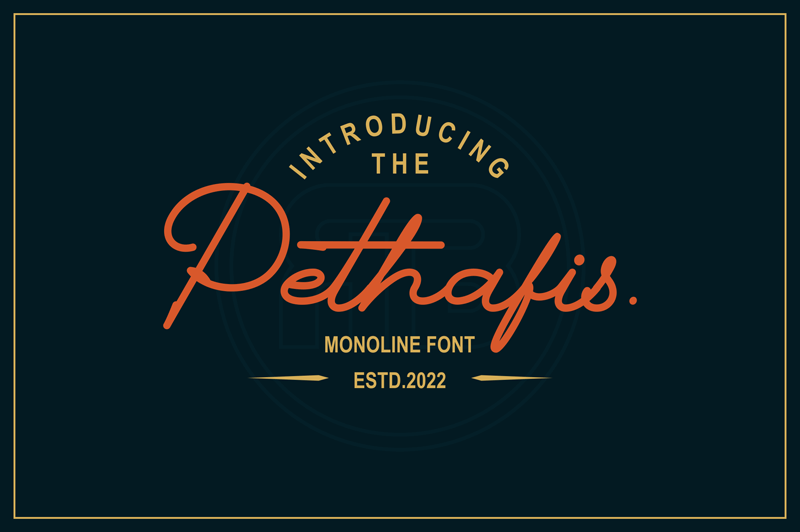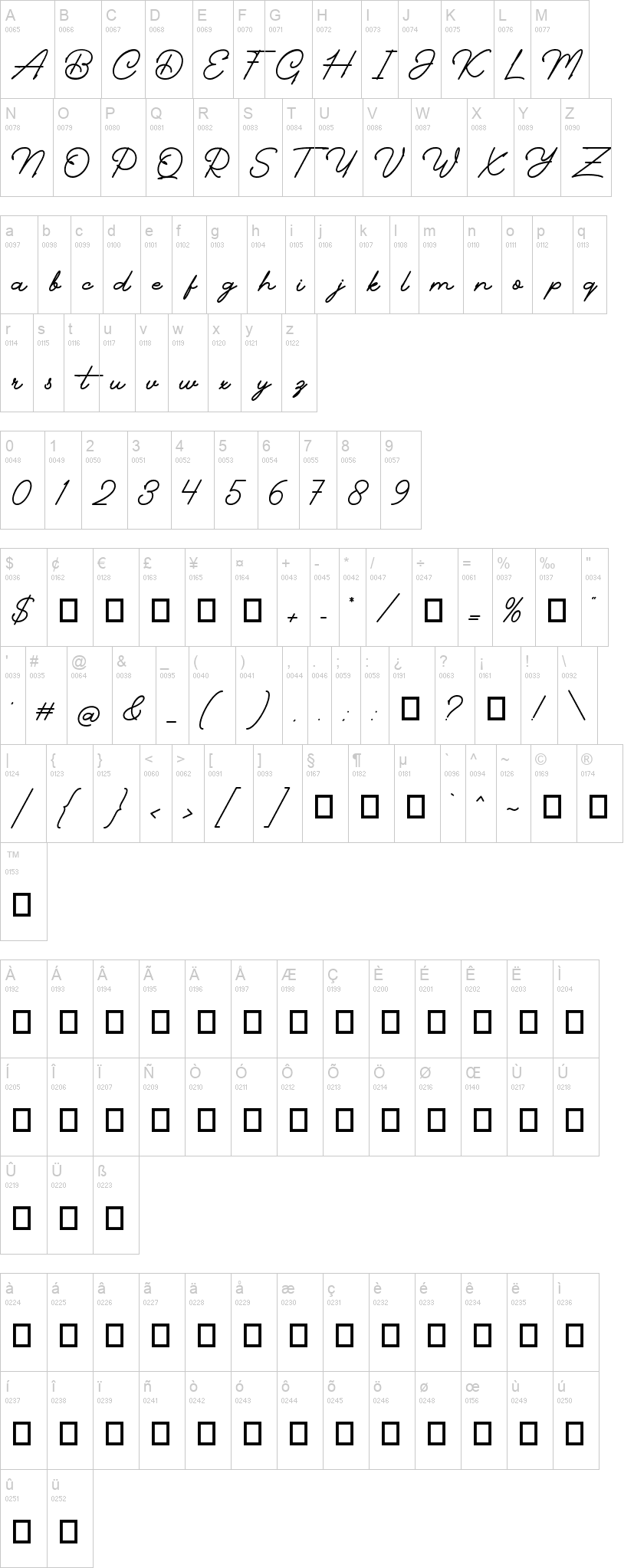
Note of the authorIntroducing Pethafis, a bold & festive monoline script font that's suitable for branding, product packaging, social media quotes and graphics, holiday cards and more.